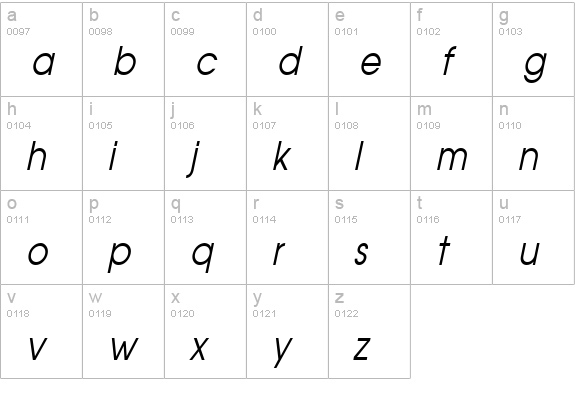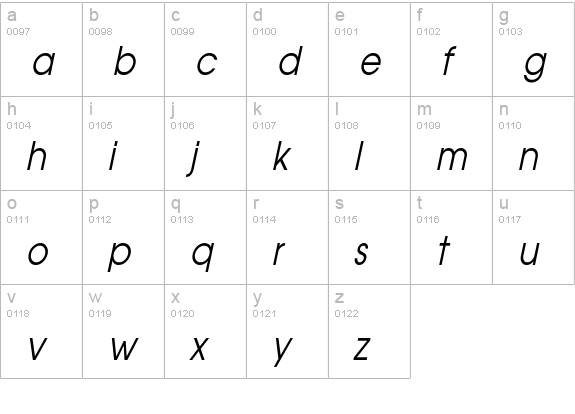
Atilla Condensed Italic Font Details
Atilla Condensed Italic is a distinctive, condensed-width, italic variant in the Atilla typeface family \xE2\x80\x94 well suited to design and typography projects.
Introducing Atilla Condensed Italic font, a sleek and stylish typeface designed to make your text stand out with a touch of elegance and sophistication. This font features a unique condensed italic design that adds a modern and dynamic flair to any project. Whether you're designing a website, creating a logo, or crafting a print layout, Atilla Condensed Italic is sure to catch the eye of your audience. And the best part? Atilla Condensed Italic font is available for free download at FontsMarket.com. Simply head over to the website, grab your copy, and start using this versatile and eye-catching font in your designs today. Don't miss out on this opportunity to elevate your typography game with Atilla Condensed Italic font - get it now and let your creativity shine!